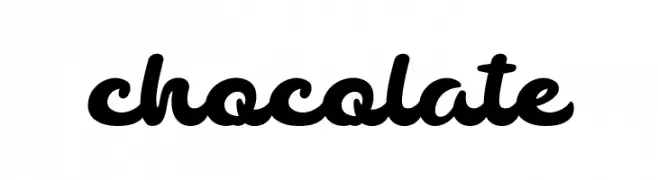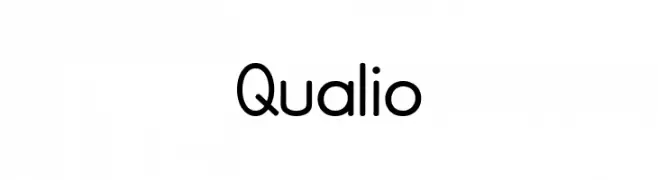
A bold, brush-style font with dynamic, irregular strokes.
A flowing, cursive font with elegant, interconnected letters.
A flowing, cursive script font with elegant, interconnected characters.
A bold, playful font with a hand-drawn, distressed style.
A bold, fiery font with jagged, flame-like strokes.
A bold, hand-drawn font with an expressive and dynamic style.
A bold, geometric typeface with strong, uniform strokes.
A clean, modern sans-serif font with an extra light weight and minimalist design.
A bold, hand-drawn font with a textured, artistic style.
A bold, playful, hand-drawn font with thick, uneven strokes and a whimsical style.
A bold, hand-drawn font with a textured, artistic style.
A bold, abstract font with irregular, splattered letterforms.
A decorative font with a melting, fluid style and bold, irregular strokes.
A bold, textured script font with a brush-like, dynamic appearance.
A bold, textured font with a rugged, icy appearance.
A playful, handwritten-style font with bold, rounded strokes.
A bold, distressed font with a hand-painted, textured appearance.
A bold, textured font with a frosty, distressed appearance.
A decorative font with an abstract, splattered ink style.
An irregular, bold font with an organic, ink-splatter appearance.
A playful, hand-drawn font with an organic, whimsical style.
A bold, playful font with an organic, hand-drawn texture.
A playful, bubbly font with thick, rounded characters and a whimsical style.
A bold, playful font with a hand-drawn, artistic style.
A bold, cursive script font with a flowing, handwritten style.
A bold, expressive script font with dynamic calligraphic flair.
A bold, distressed font with a rugged, hand-drawn appearance.
A bold, jagged font with a dynamic, brush-like style.
A bold, textured brush-style font with a hand-painted look.
A bold, playful font with a hand-drawn, sketch-like style.